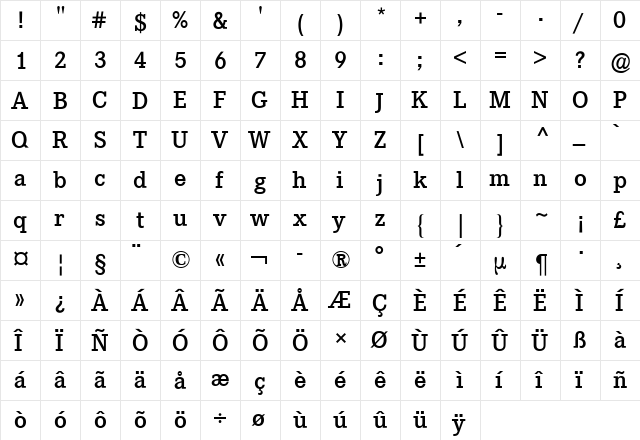
Corporate E BQ Medium Font Preview
Corporate E BQ Medium
Design Context for Corporate E BQ Typeface
Corporate E BQ takes a measured approach to typography — its balanced proportions and neutral character make it a reliable workhorse for both digital and print work.
Pro Tip: Use Corporate E BQ in both headline and body roles to test its range before committing to a single application.